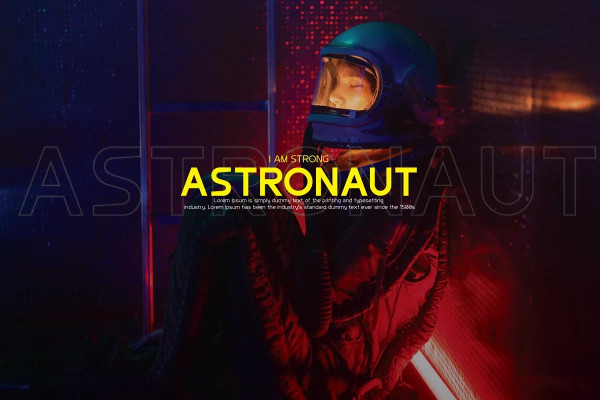
Broaek Font
Broaek Font is a sans display typeface with a modern impression. This font consists of 3 types of styles, namely regular, thin, and outline. This font is perfect for use in headlines, posters, branding, titles, and other graphic designs.